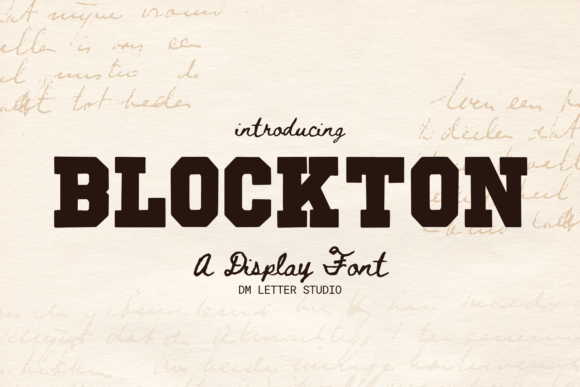
Give Your Designs a Bold Boost with Blockton Font
Have you ever stared at a blank design canvas, feeling stuck and unsure of how to make your vision come to life? That’s where the magic of typography comes in. A well-chosen font can elevate your design from bland to grand, and that’s exactly what Blockton Font is designed to do.
Blockton Font is a bold block display font built with strong, confident letterforms that demand attention. Its clean geometry and solid weight make it perfect for headlines, logos, and statement designs where clarity matters. With its simple and predictable block structure, layouts come together fast, and it pairs perfectly with thin scripts or minimalist sans fonts to build contrast without clutter.
Blockton Font Key Features
- Unique Characteristics: Features a unique blend of modern and vintage elements, creating a distinctive and eye-catching appearance.
- Font Style: Available in both Regular and Bold weights, allowing users to choose the perfect style to suit their needs.
Blockton Font Review
As a designer, I was excited to try out the Blockton font, and here’s my honest review.
- The Blockton font is a great choice for headlines and titles due to its bold and eye-catching appearance.
- The font has a wide range of styles and weights, making it suitable for various design projects.
- It’s highly legible, even at smaller font sizes, which is a plus for designers who need to ensure their content is readable.
- Blockton font also supports multiple languages, which is a huge plus for international design projects.
- The font can be a bit too bold for body text, which might make it difficult to read for extended periods.
- Some users might find the font a bit too modern or trendy, which might not be suitable for all design projects.
- The font lacks a more subtle or minimalist version, which could be useful for designers who prefer a more understated look.
Overall, I think the Blockton font is a solid choice for designers who need a bold and eye-catching font for their projects. While it may have some limitations, its versatility and wide range of styles make it a great addition to any designer’s toolkit.
Tips for Getting the Most Out of Blockton Font
Blockton Font is a versatile font that can be used for a variety of projects, including:
– Headings and titles
– Body text
– Logos and branding
Some tips for getting the most out of Blockton Font include:
– Experimenting with different font sizes and styles
– Combining Blockton Font with other fonts for a unique look
– Using Blockton Font in conjunction with bold or italic text for emphasis.